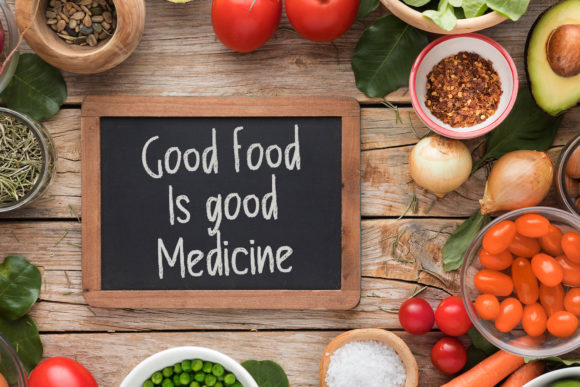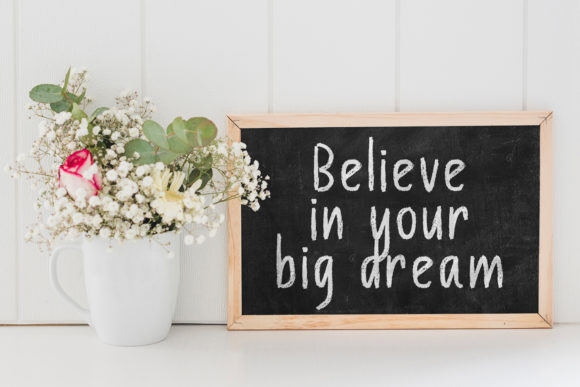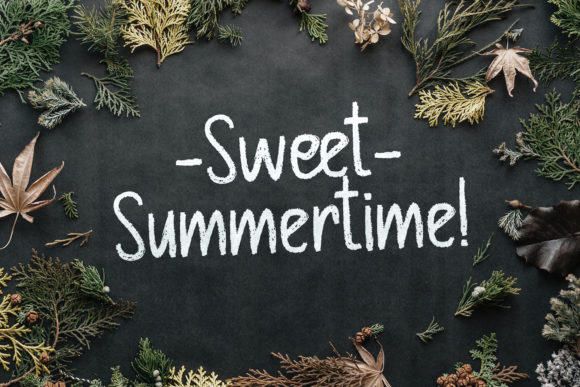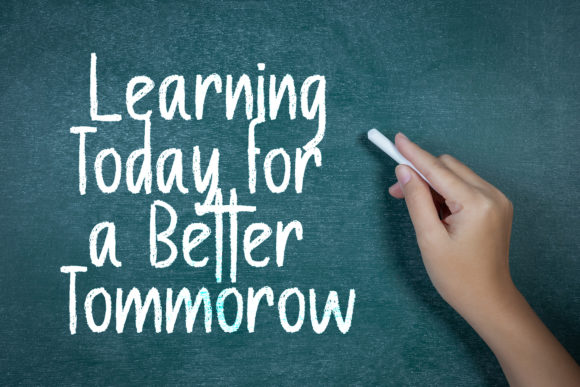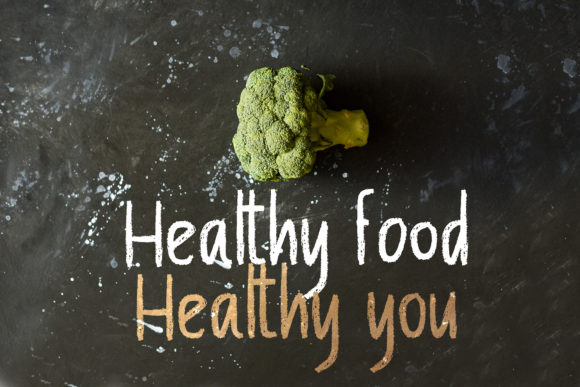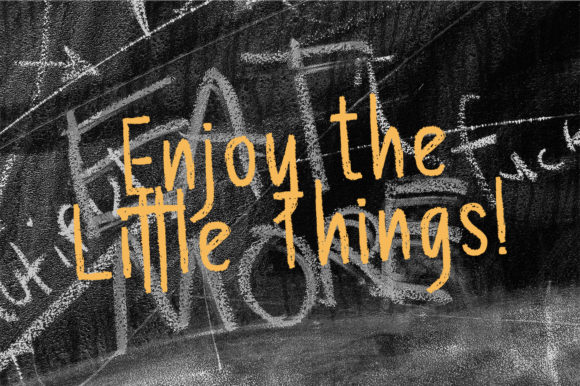
Introducing Chalkboard Font: The Ultimate Display Font for Stunning Designs
Are you tired of using the same old fonts for your designs? Look no further than the Chalkboard Font, a simple yet elegant display font that’s perfect for creating spectacular designs. With its incredibly versatile style, you’ll fall in love with Chalkboard Font and want to use it for all your design projects.
What is Chalkboard Font?
Chalkboard Font is a display font that’s designed to mimic the look of chalkboard writing. It’s a clean and well-balanced font that’s perfect for creating eye-catching designs. The font features a unique blend of modern and classic elements, making it suitable for a wide range of design projects, from rustic and vintage to modern and sleek.
Key Features of Chalkboard Font
- Simple and Elegant Design: Chalkboard Font features a simple and elegant design that’s perfect for creating stunning designs.
- Well-Balanced: The font is well-balanced, making it easy to read and perfect for use in a variety of design projects.
- Incredibly Versatile: Chalkboard Font is incredibly versatile, making it suitable for use in a wide range of design projects, from rustic and vintage to modern and sleek.
- High-Quality: The font is of high quality, ensuring that your designs look professional and polished.
Uses of Chalkboard Font
Chalkboard Font is perfect for a wide range of design projects, including:
- Signage: Use Chalkboard Font to create eye-catching signs for your business or event.
- Posters: Create stunning posters for your next event or promotion using Chalkboard Font.
- Logos: Use Chalkboard Font to create a unique and memorable logo for your business.
- Social Media Graphics: Create stunning social media graphics using Chalkboard Font to help your brand stand out.
- Crafting Projects: Use Chalkboard Font to add a personal touch to your crafting projects, such as handmade cards and gift tags.
Benefits of Using Chalkboard Font
Using Chalkboard Font in your designs offers a range of benefits, including:
- Uniqueness: Chalkboard Font is a unique and distinctive font that will help your designs stand out from the crowd.
- Flexibility: The font is incredibly versatile, making it suitable for use in a wide range of design projects.
- Ease of Use: Chalkboard Font is easy to use and can be easily integrated into your design projects.
- Professional Look: The font features a professional and polished look that’s perfect for creating high-quality designs.
Tips for Using Chalkboard Font
Here are some tips for using Chalkboard Font in your designs:
- Use it for Headings: Chalkboard Font is perfect for use in headings and titles, where its unique and eye-catching design can really make an impact.
- Experiment with Colors: Try using Chalkboard Font in different colors to add an extra layer of interest to your designs.
- Pair it with Other Fonts: Experiment with pairing Chalkboard Font with other fonts to create a unique and interesting design.
- Use it for Textured Designs: Chalkboard Font is perfect for use in textured designs, such as those featuring a chalkboard or blackboard effect.
Chalkboard Font is a simple yet elegant display font that’s perfect for creating stunning designs. With its incredibly versatile style, it’s suitable for use in a wide range of design projects, from rustic and vintage to modern and sleek. Whether you’re a designer, crafter, or DIY enthusiast, Chalkboard Font is a great addition to your font collection.